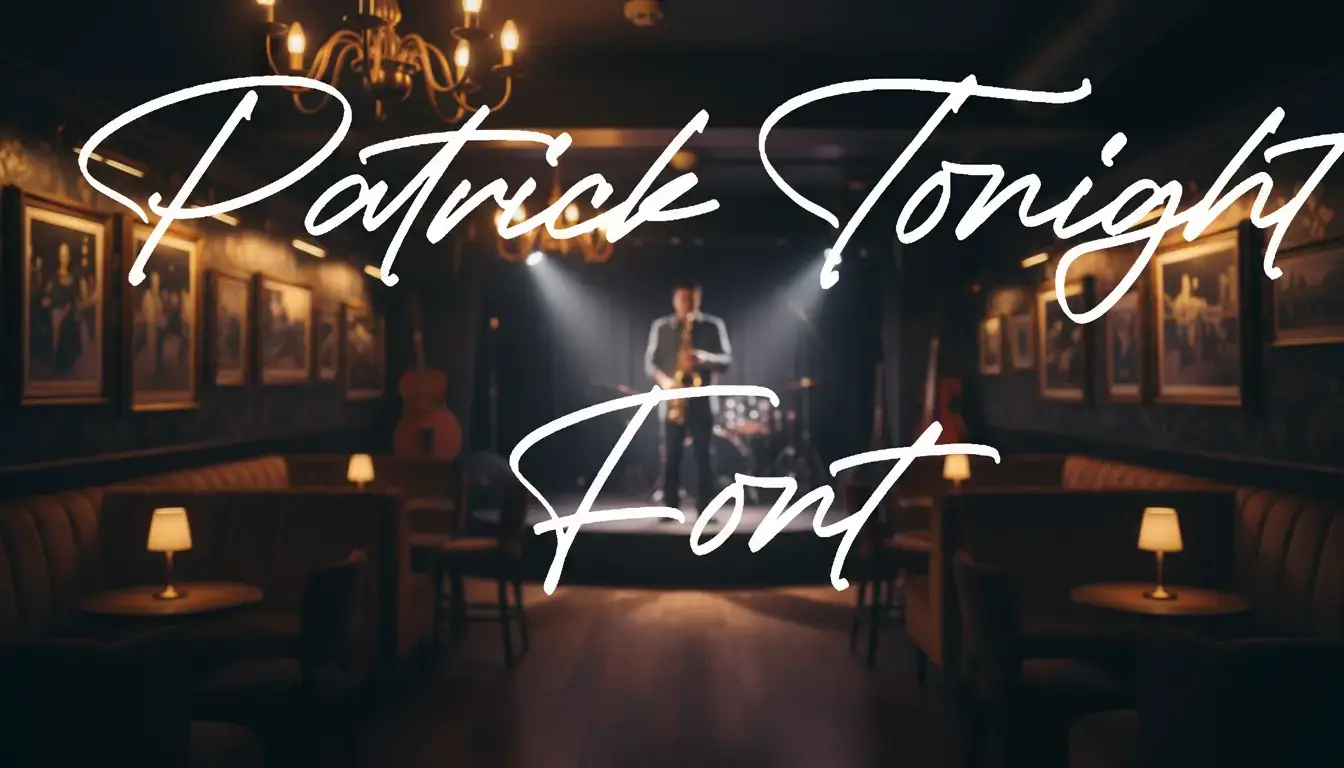
Patrick Tonight Font
Patrick Tonight
Patrick Tonight is a handwritten font made by Glorytype. The letters have the small wobbles and personality of real handwriting, so your text feels warm instead of printed. You can download it for free and test it with your own words in the preview above.
What You Can Type With Patrick Tonight
Patrick Tonight covers the full alphabet in upper and lowercase, plus all ten numbers, so you can set names, dates and prices without switching fonts. Common punctuation such as &, !, ? and @ is included as well. It also has the accented letters you need for Spanish, French, German, Portuguese and Italian.
Where Patrick Tonight Works Best
Think of Patrick Tonight for greeting cards, journal pages and friendly social posts. Set it a bit larger than you would a normal text font. Handwriting styles lose their charm once they get too small to read comfortably.
Does Patrick Tonight support accented letters?
Yes. Patrick Tonight includes the accented letters needed for Spanish, French, German, Portuguese and Italian, so it works for more than just English.